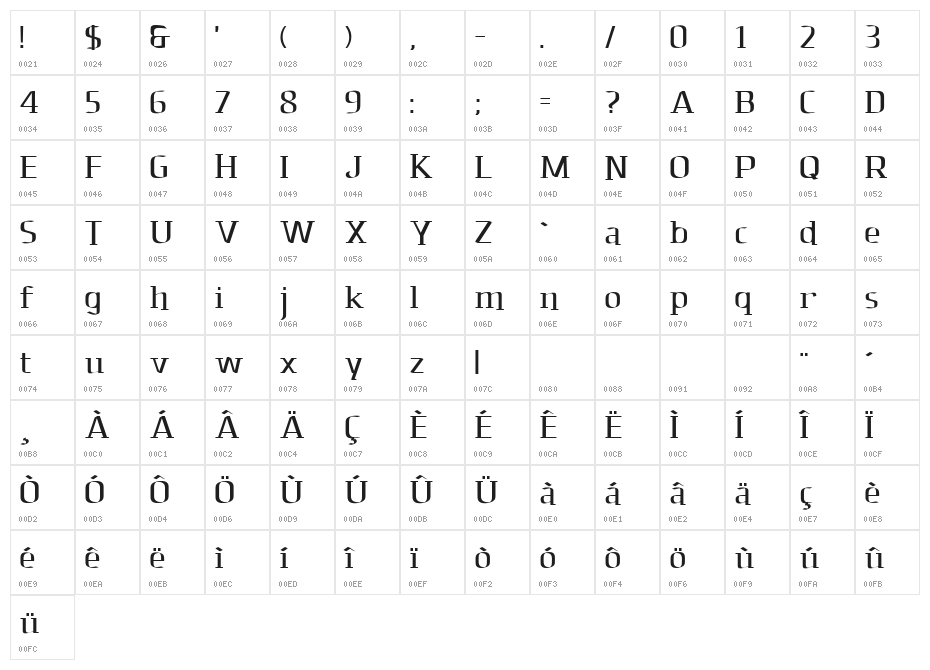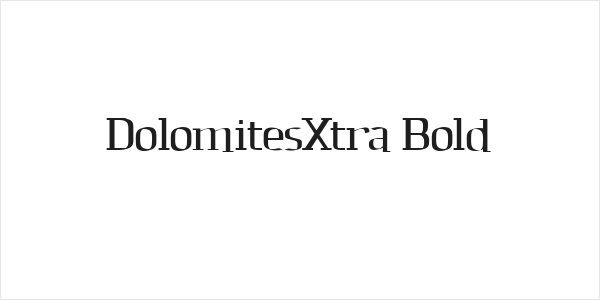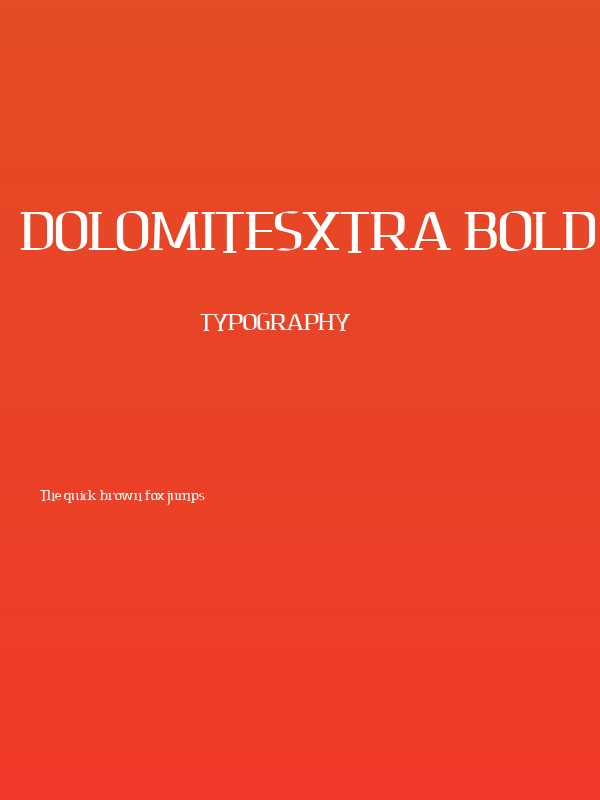
DolomitesXtra Bold Font
DolomitesXtra Bold Description
This font features a bold and striking design with a modern twist. The uppercase letters are tall and commanding, with sharp serifs that add a touch of elegance. The lowercase letters maintain a consistent style, offering a harmonious blend with the uppercase. The numerals are clear and distinct, making them easy to read. Special characters are designed with the same attention to detail, ensuring they fit seamlessly with the rest of the font. Overall, this font exudes a sense of strength and sophistication, making it ideal for impactful designs.